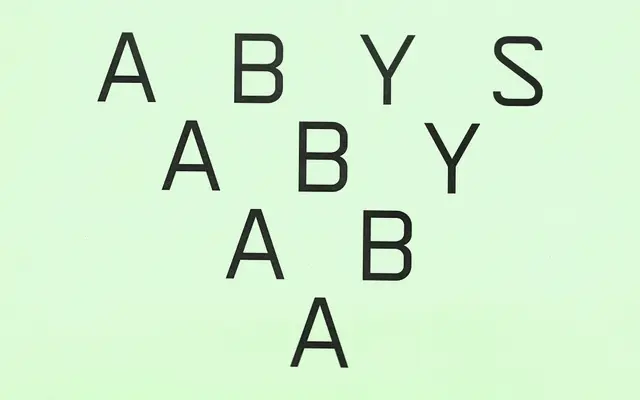
TwoTone Collection
Bal Foundry · Guillaume Sbalchiero · 2026
A checkerboard-structured display family in fourteen styles named after bands and tracks from the 2-Tone ska scene, released as a typographic diptych with its filled counterpart OneTone.
Designed by Guillaume Sbalchiero and released in 2026, the family takes its structural logic from the black-and-white checkerboard of the 2-Tone Records label, founded in Coventry by Jerry Dammers of The Specials. Seven styles run across each subfamily, their names drawn from the genre's lexicon: Ghost, Selecter, Beat, Madness, Jam, Checker and Specials. TwoTone makes the rhythmic grid explicit; OneTone fills the white squares, absorbing the pattern into solid form while the underlying pulse remains.
A modular display typeface built entirely on a checkerboard grid structure, placing it firmly in the display category with a geometric, pattern-driven construction rather than any conventional type classification.